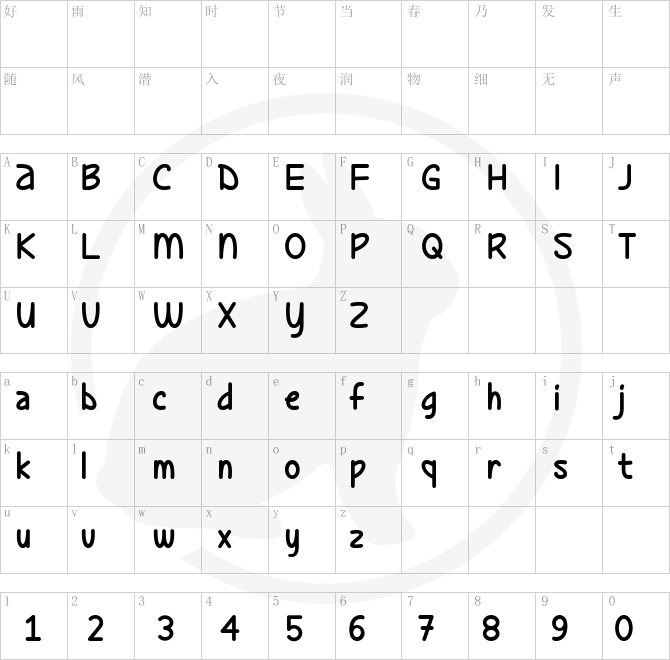
- Font Name:Ladybug Love Demo
LadybugLoveDemo-Regular.ttf is a very beautiful artistic font, LadybugLoveDemo-Regular.ttf is widely used in the design and printing of various books and pictures,LadybugLoveDemo-Regular.ttf has a strong visual impact,LadybugLoveDemo-Regular.ttf is a commonly used font in newspapers, magazines and books, and is used in posters, e-commerce Poster design, store design, logo design, font design and other fields.LadybugLoveDemo-Regular.